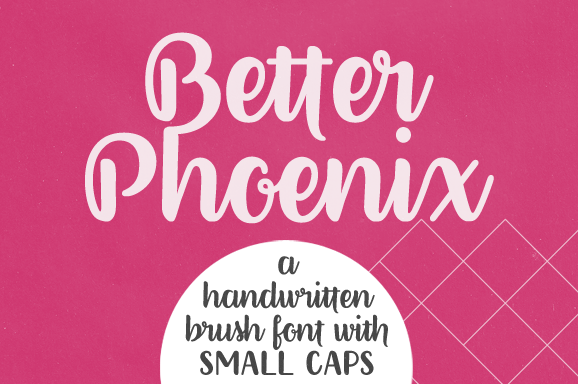
"Better Phoenix" is a polished brush font, with 400+ glyphs, including: - A-Z, a-z, 0-9, accents, punctuation and symbols - Small Caps - Contextual and stylistic alternates - Swashes - Ligatures Try it out for free with this sample version! For the full commercial version, please visit one of these links: https://www.anasfonts.com/ https://creativemarket.com/justlikethistrain?u=justlikethistrain http://www.revolge.com/shop/anas-fonts/ https://thehungryjpeg.com/anas-fonts/ https://www.fontspring.com/foundry/anas-fonts https://buyafont.com/designer/anas-fonts |